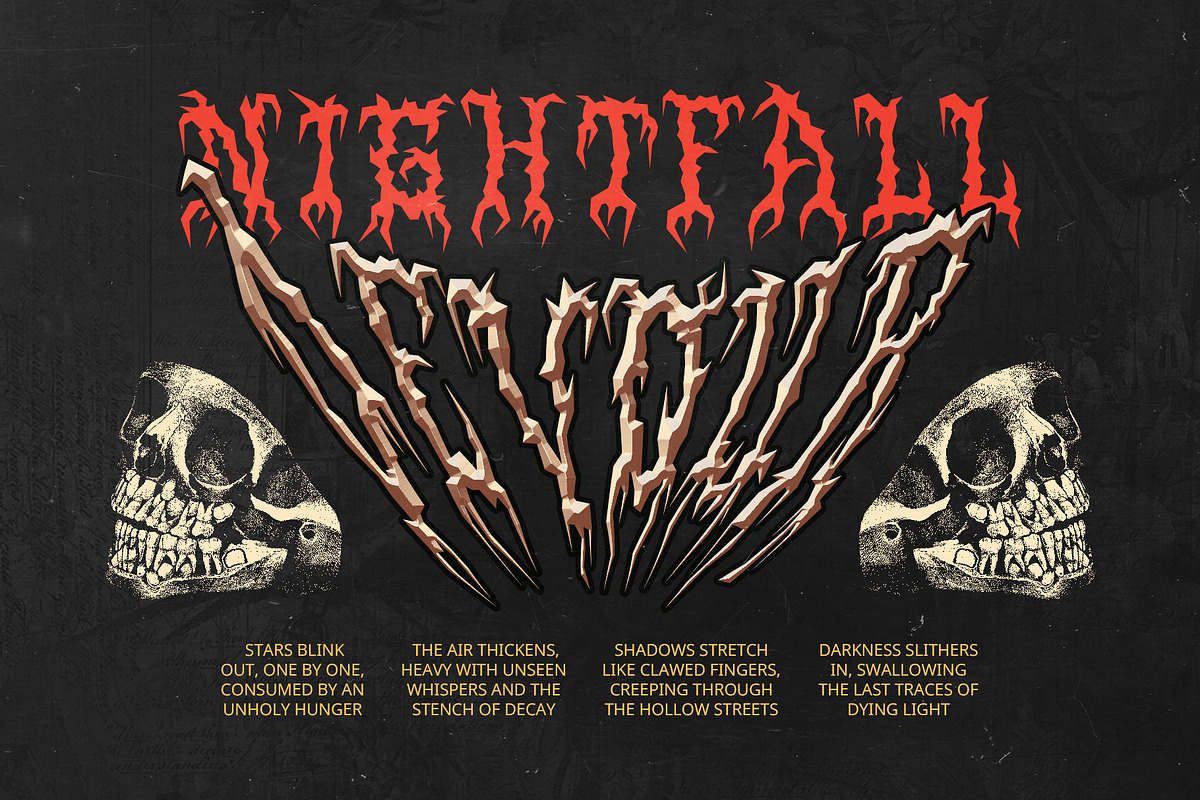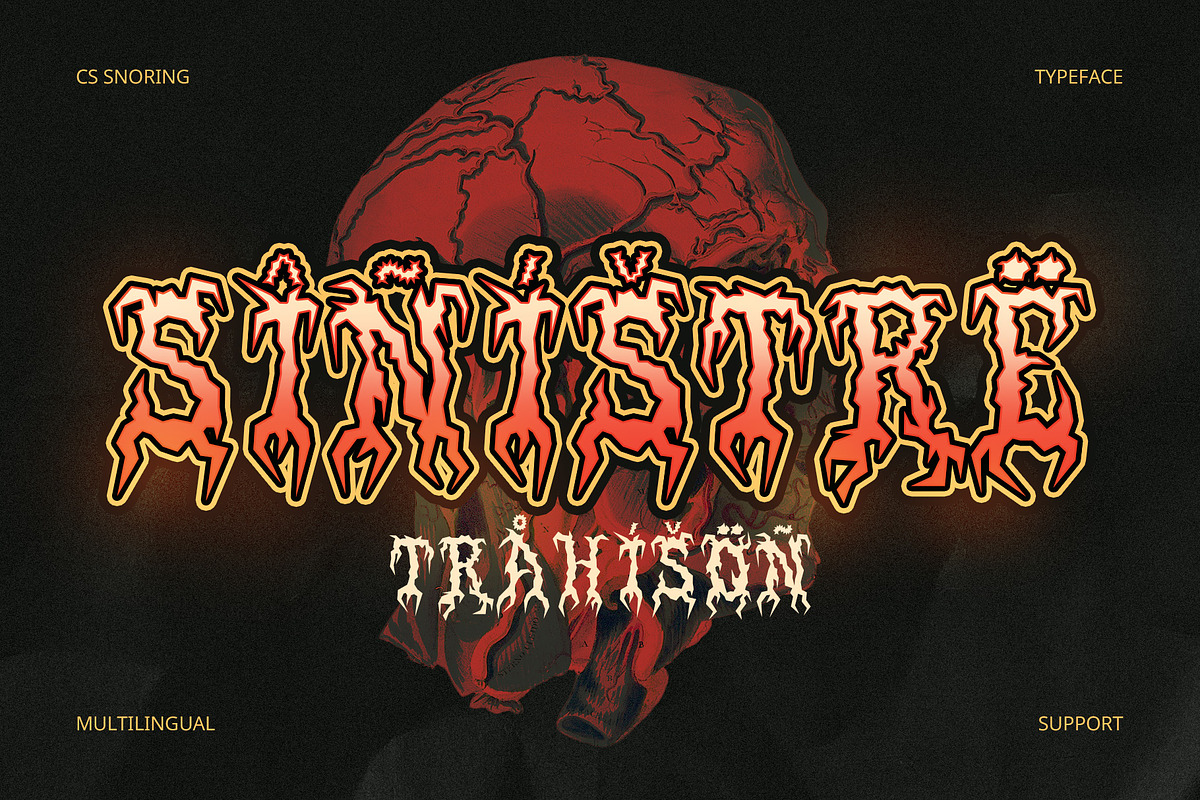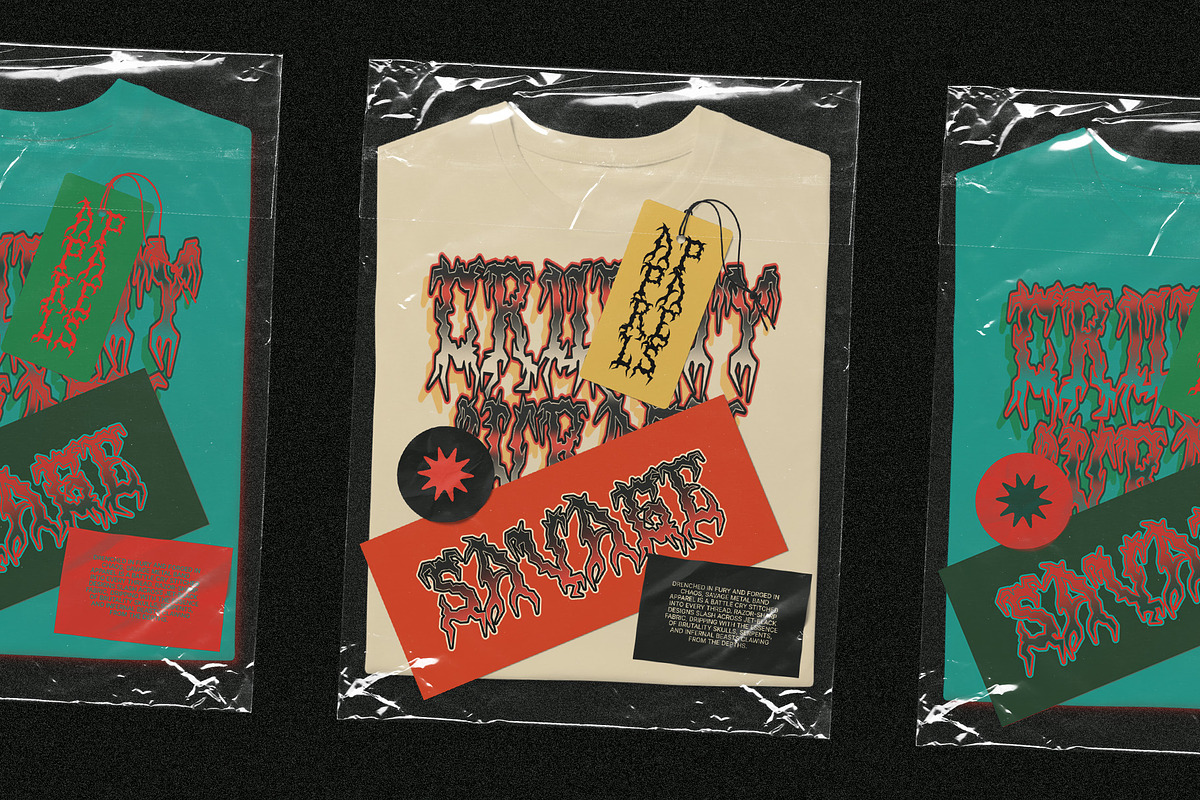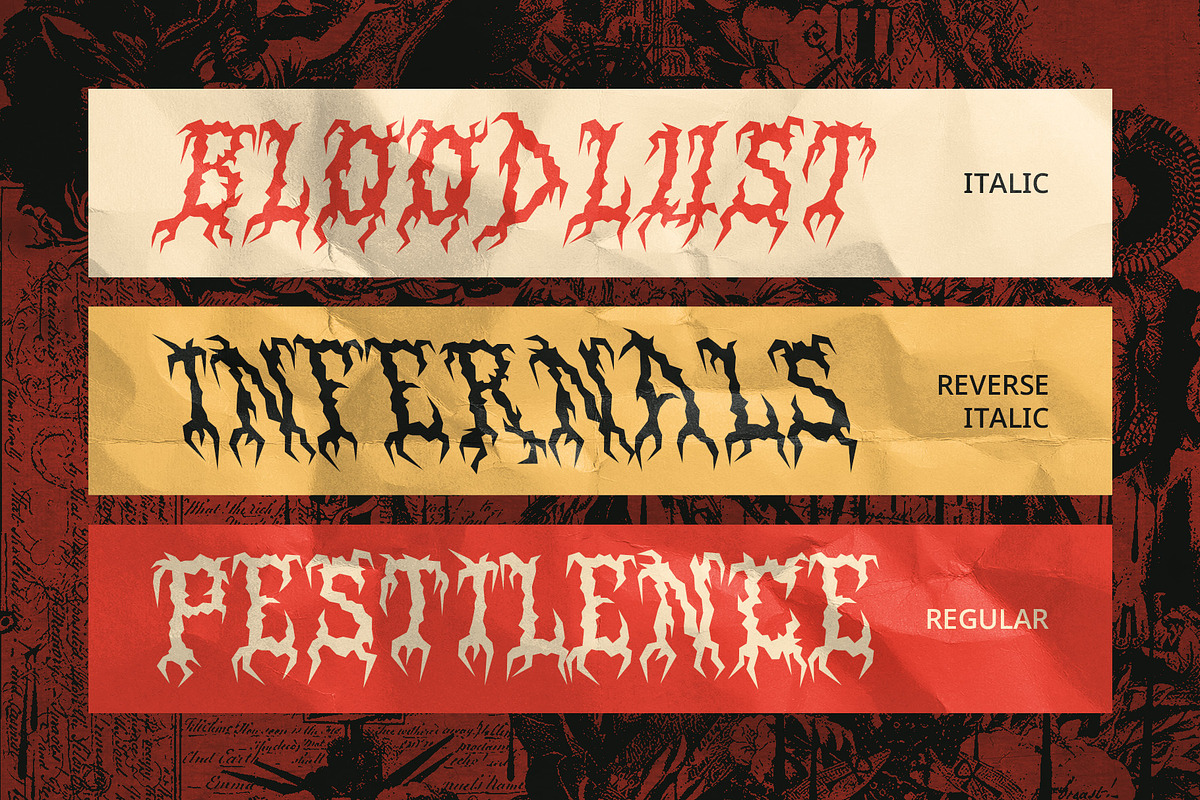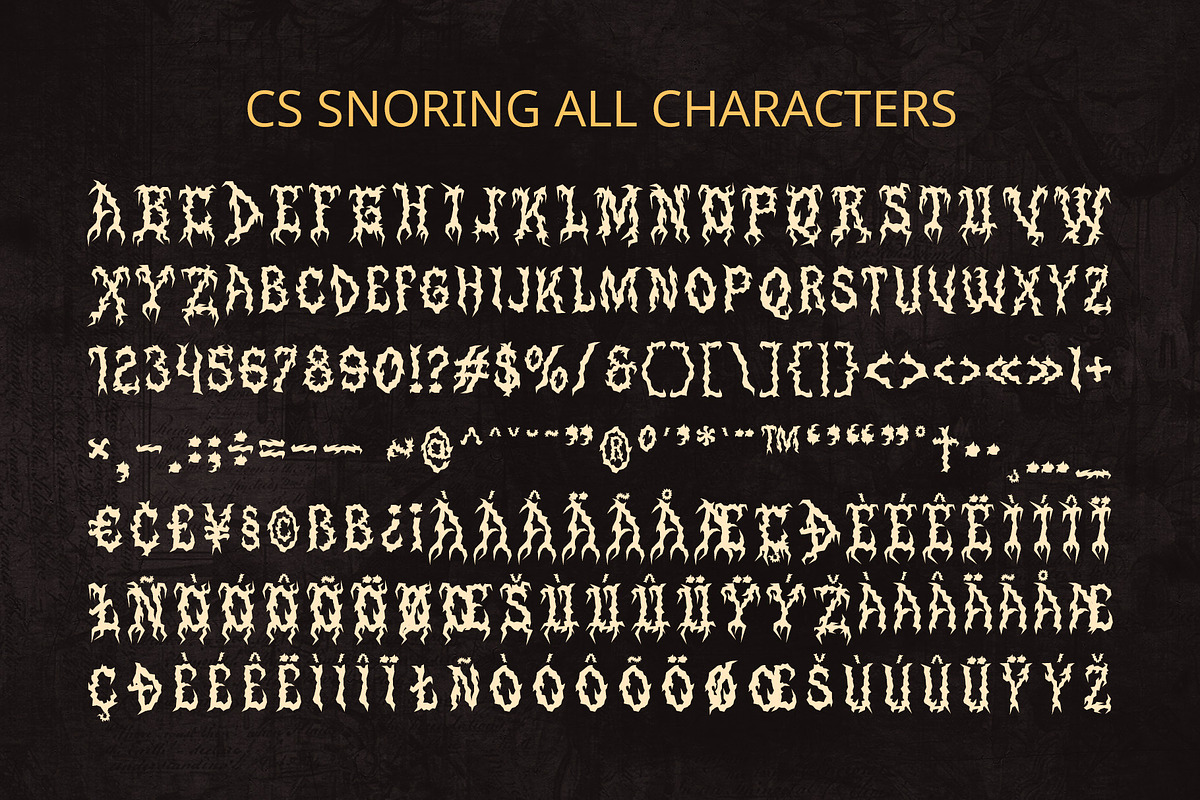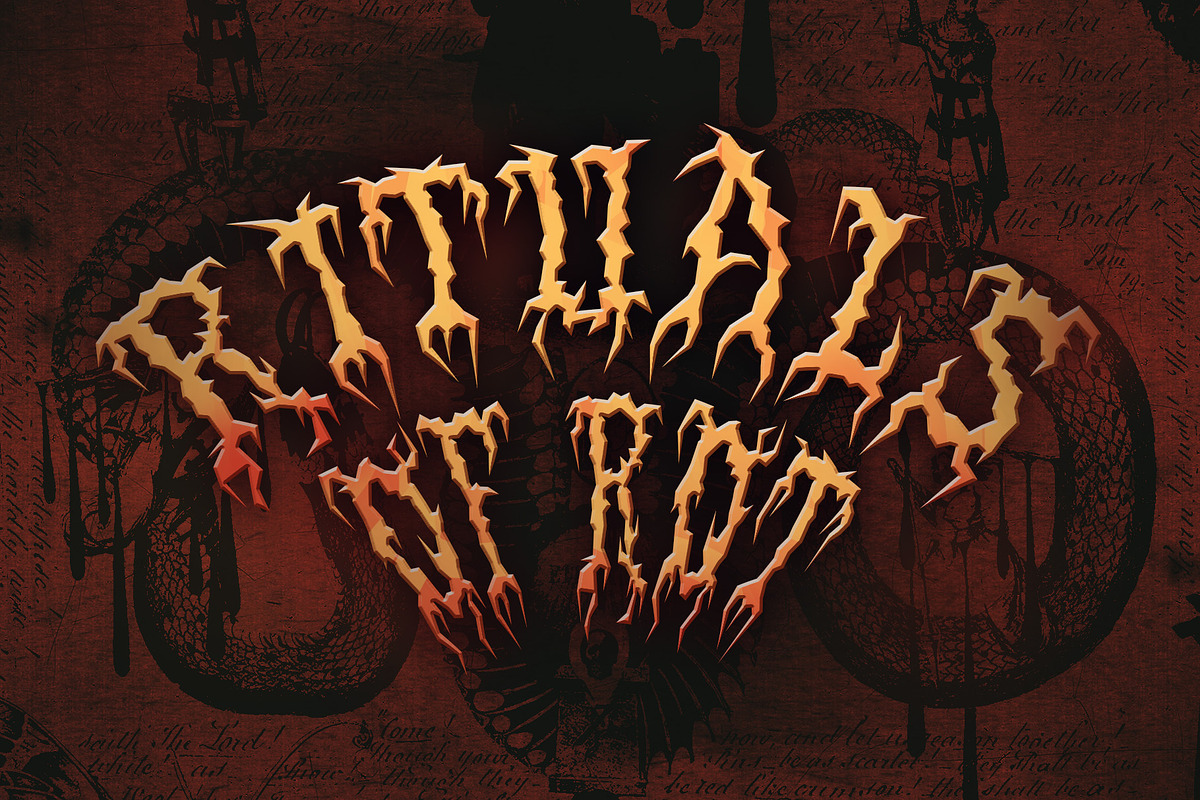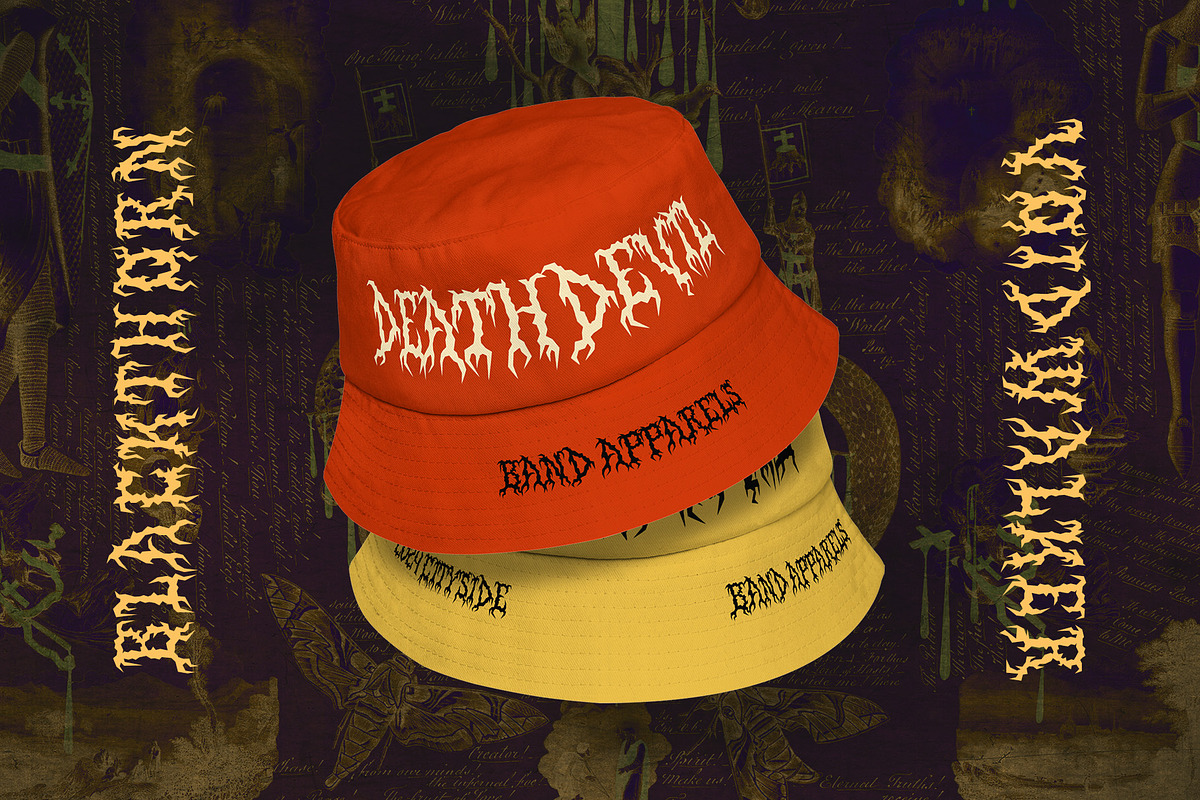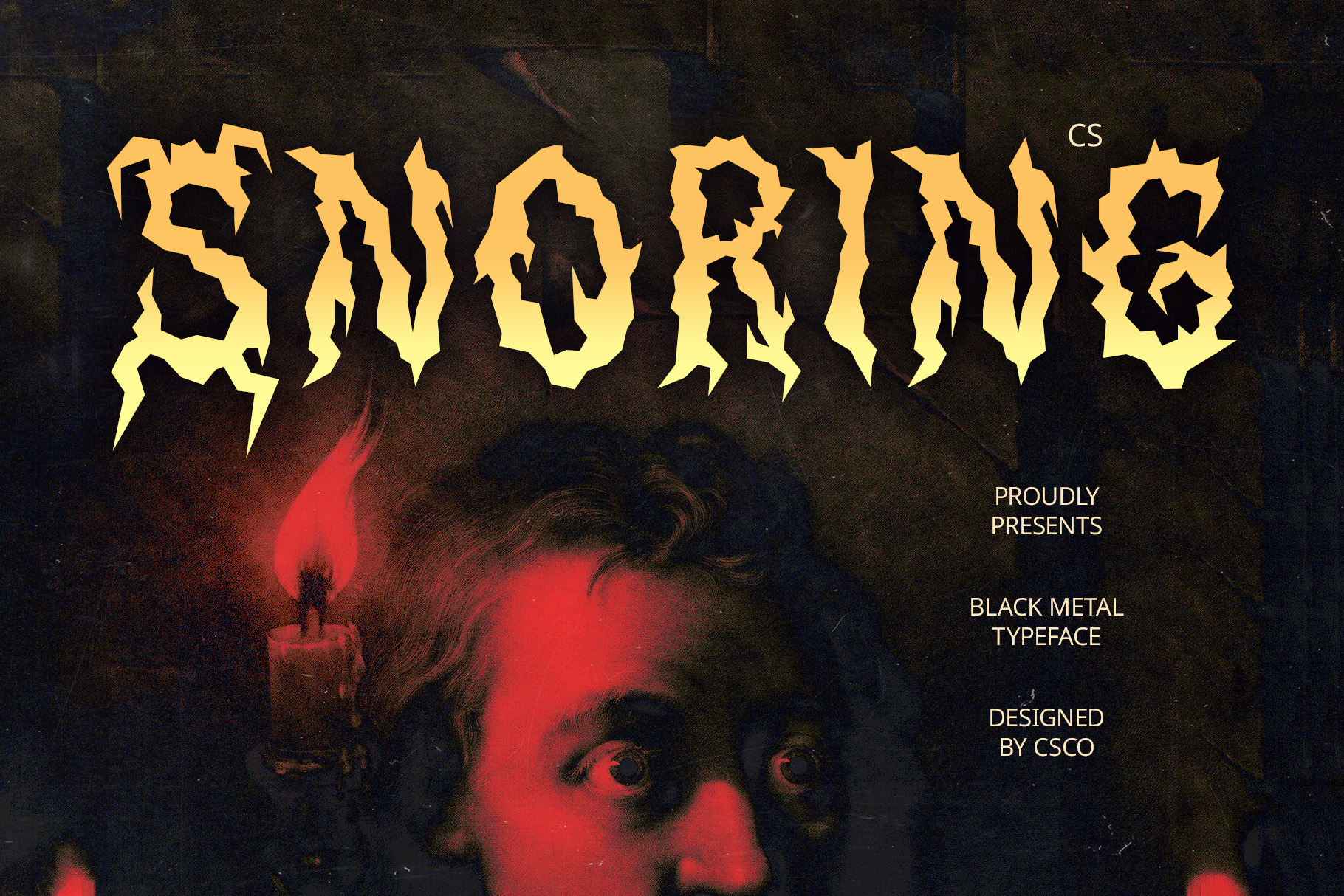
CS Snoring – Black Metal Font
CS Snoring – Black Metal Font: Raw Chaos and Extreme Aesthetics
Dark and Aggressive Letterforms CS Snoring is a Black Metal display font crafted with sharp, spiked letterforms and intricate details. Inspired by the raw intensity of metal music, this font embodies chaos, rebellion, and a dark mystique, making it perfect for extreme and underground designs.
Gothic and Mystical Influence With elements resembling gothic structures, mystical symbols, and natural distortions like cracks or thorny branches, CS Snoring delivers an eerie and unsettling presence. Its jagged edges and rugged texture evoke a sense of brutality, ideal for horror-themed visuals.
Perfect for Metal and Underground Aesthetics Designed for impact, CS Snoring is the go-to choice for metal band logos, concert posters, and alternative fashion branding. Its distinctively aggressive and atmospheric style ensures a commanding visual statement in every design.
Uncompromising and Powerful Style This font’s extreme detailing and unconventional letterforms push the boundaries of traditional typography. CS Snoring is not just a typeface—it’s an artistic expression of darkness and defiance, ideal for those who seek a bold, mysterious, and unforgettable design.